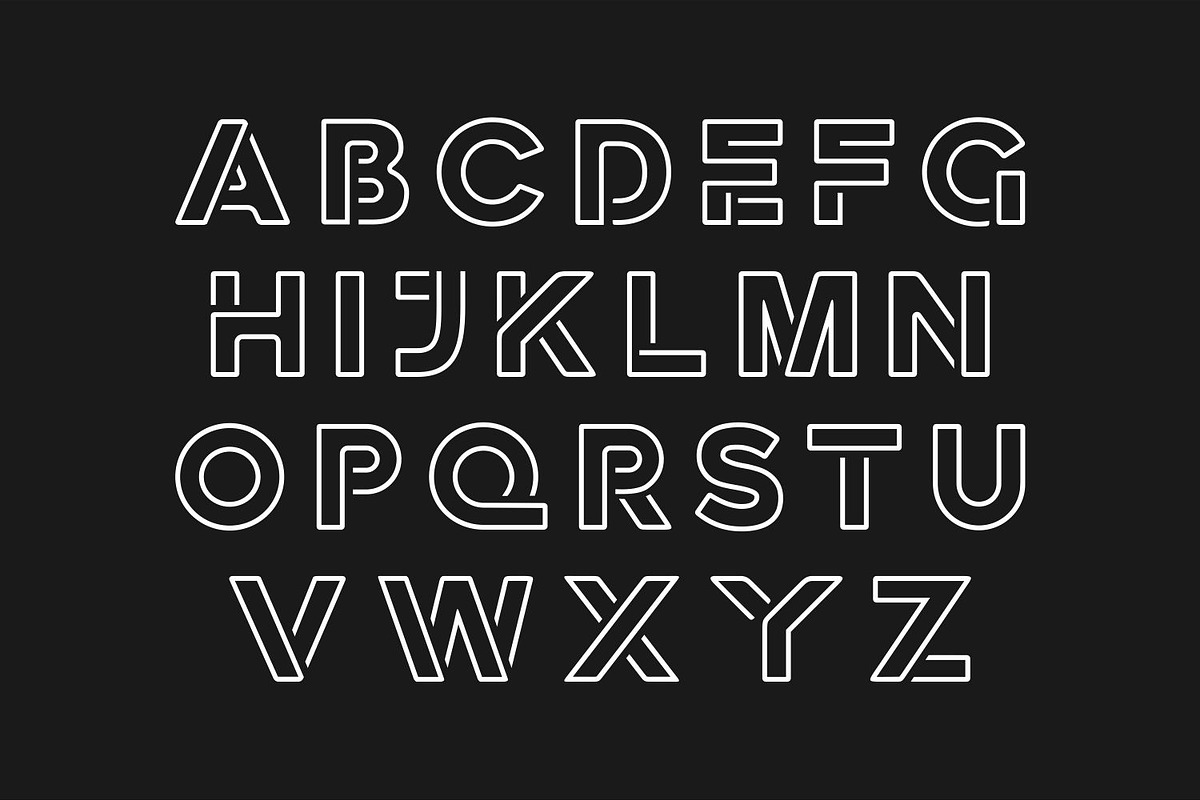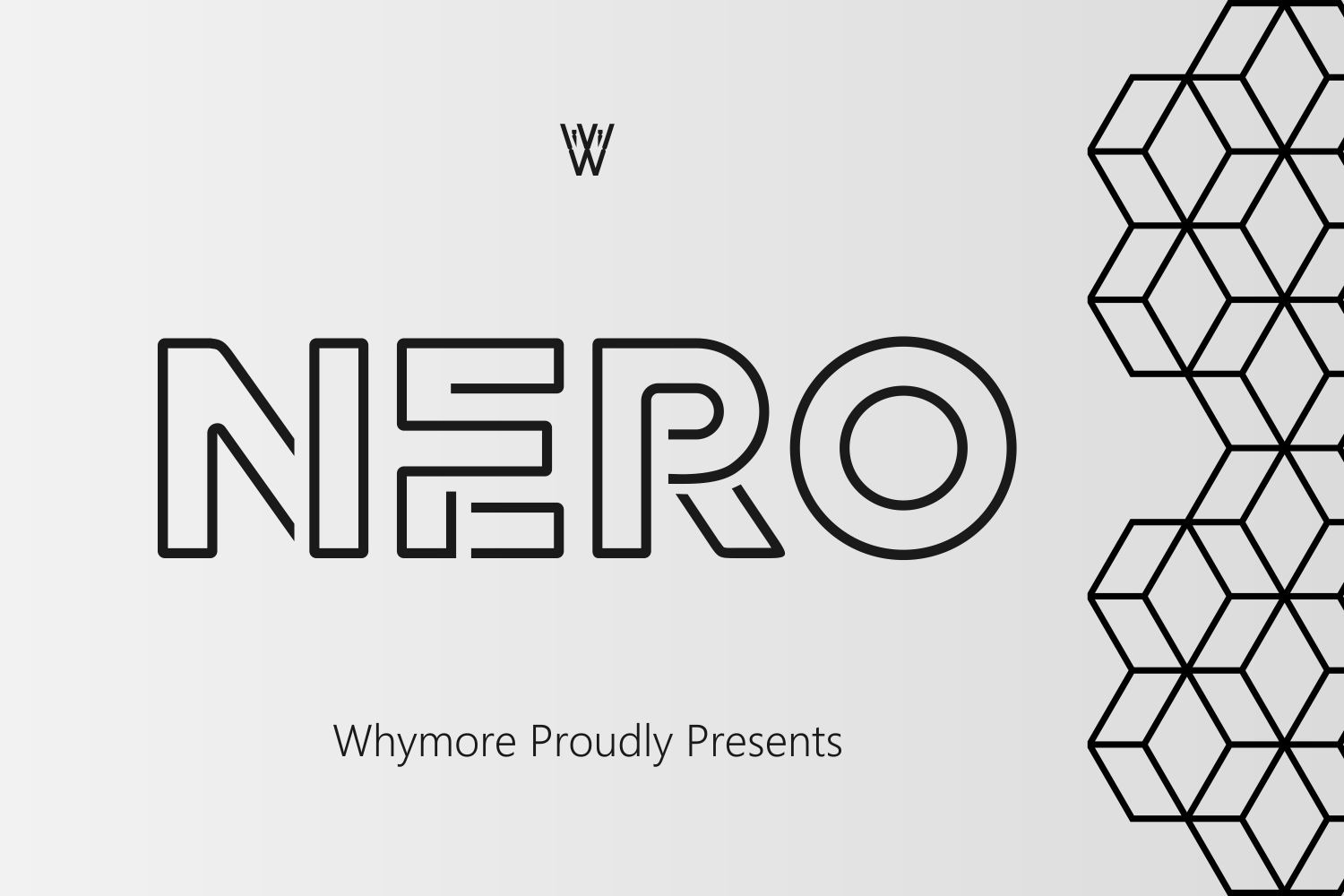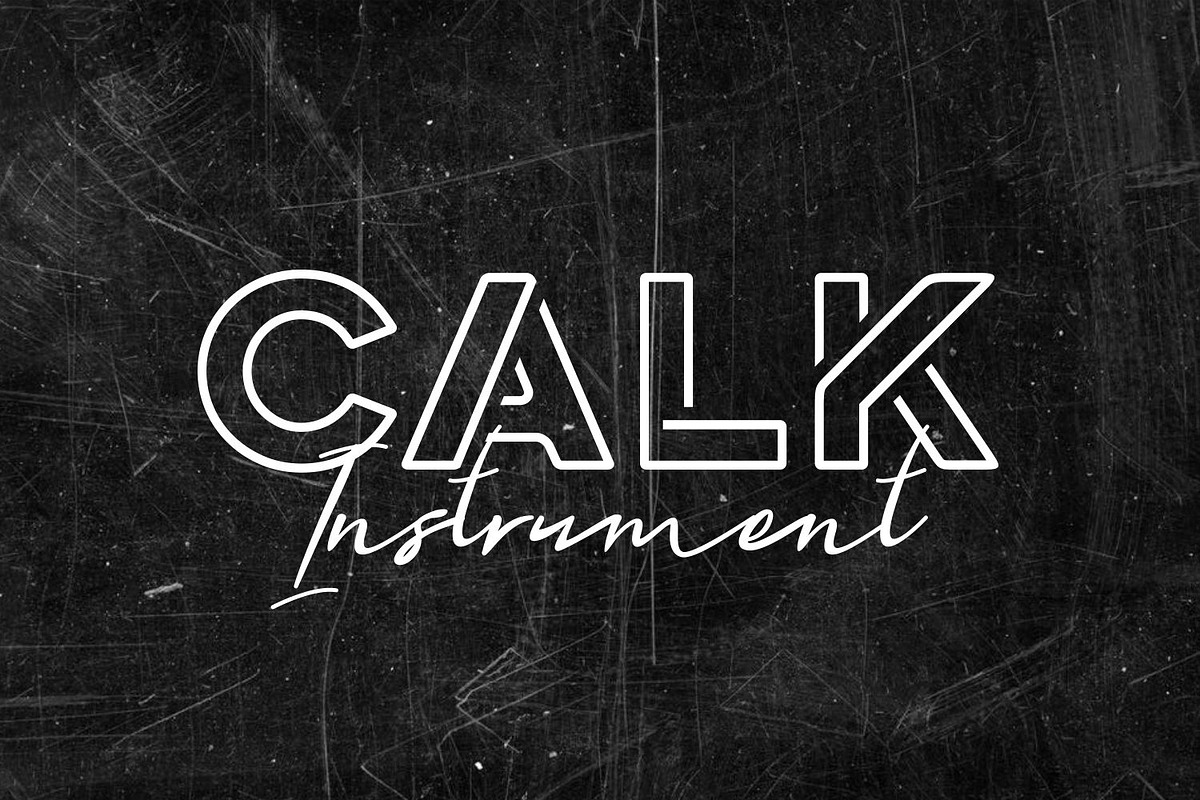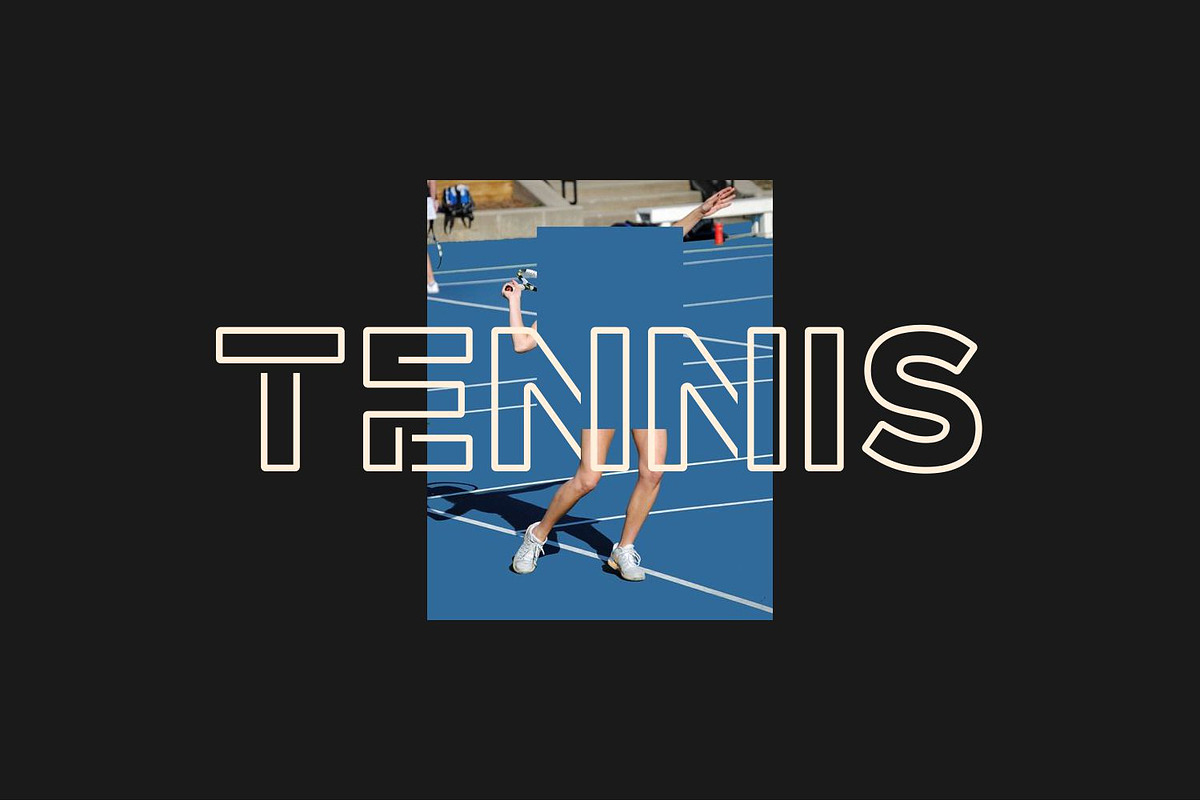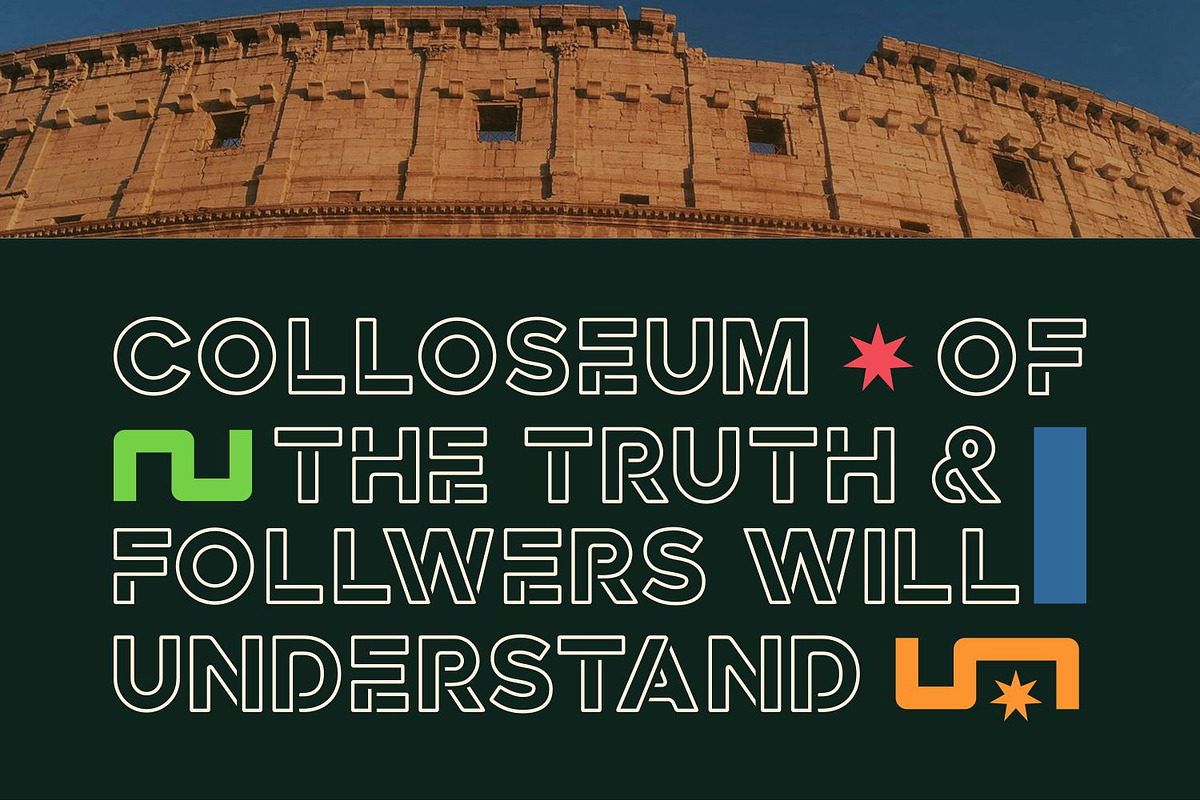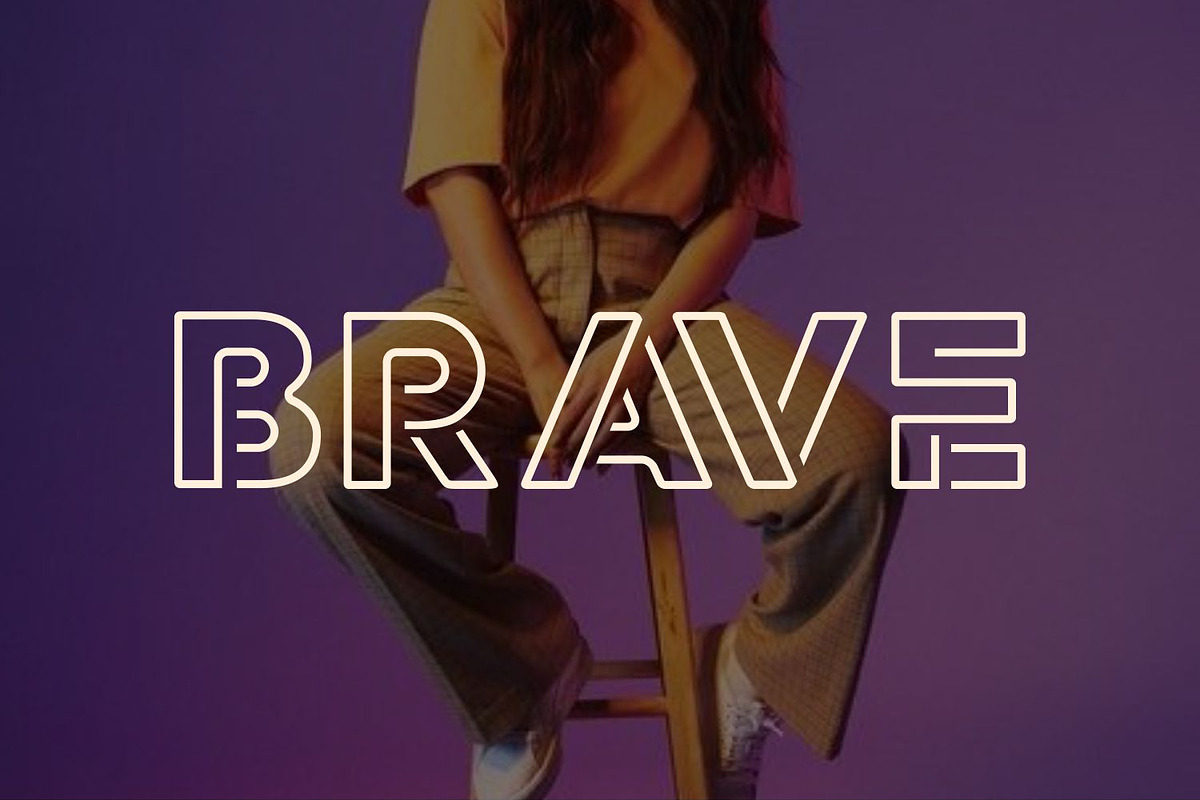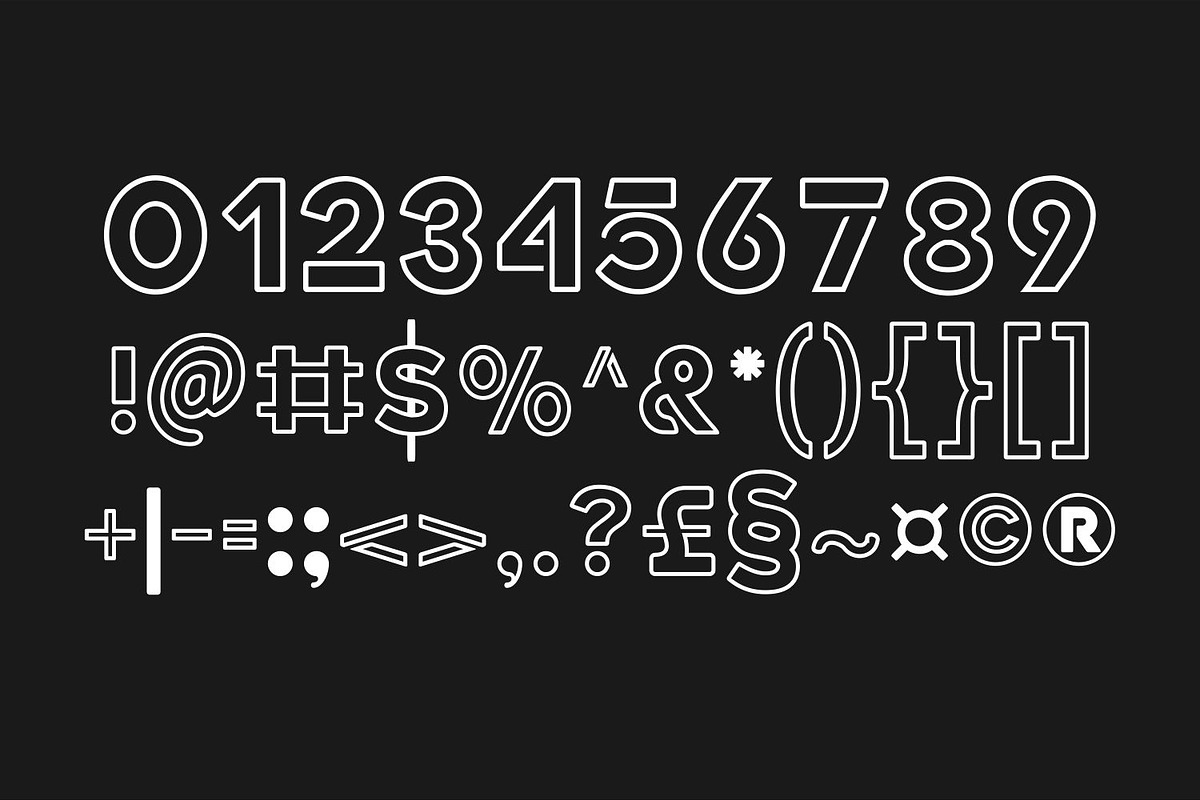
NERO Bold Sans Line Fonts
Nero Sans Line Pro is more than just a font; it’s a tool for unlocking your creative potential. With its sophisticated design and functional versatility, this typeface helps you create stunning visuals that resonate with your audience.